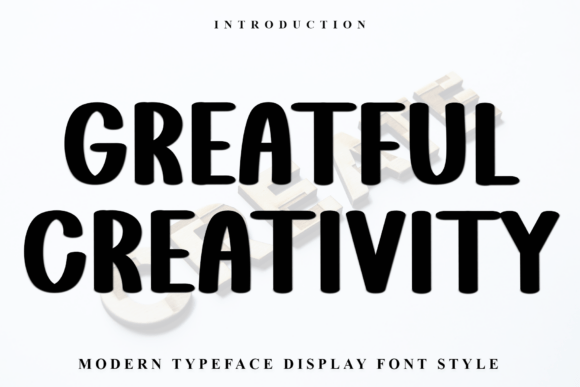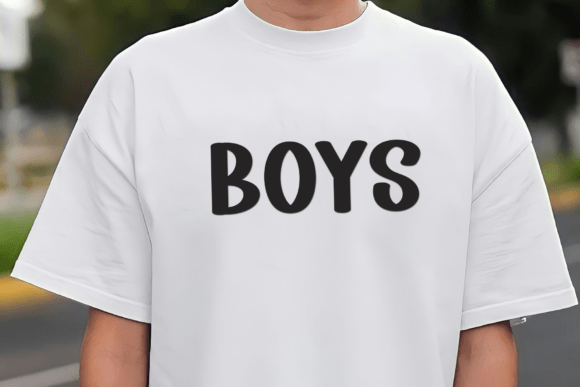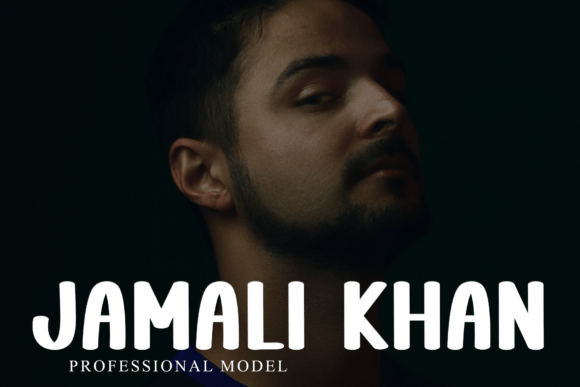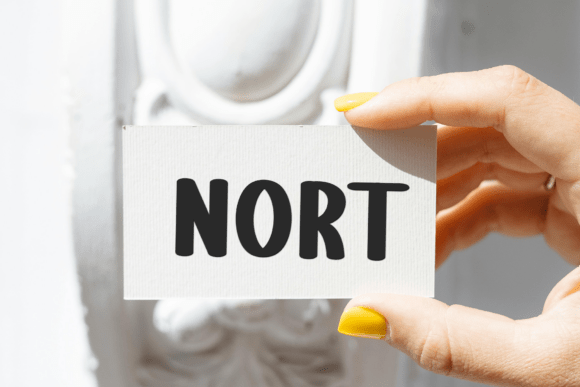
Greatful Creativity Font
About the Greatful Creativity Font
Step up your design game with Greatful Creativity Font, a font that exudes confidence and style. Greatful Creativity is a festive and merry typeface that captures the spirit of the holiday season. With its decorative elements and whimsical flair, it adds a touch of enchantment to your designs. Perfect for greeting cards, gift tags, and holiday-themed projects, this font brings a cheerful and nostalgic ambiance to your words. Let your typography shine with the magic of Beautiful Font!
Greatful Creativity’s playful personality makes it ideal for projects needing a lighthearted touch, such as children’s books, festive packaging, or whimsical branding for businesses like bakeries or toy stores. It shines in headlines, short quotes, and logos, but its decorative nature makes it less suitable for body text or UI elements requiring high readability.
For optimal visual balance, pair Greatful Creativity with a clean sans-serif like Open Sans for body copy, or a classic serif like Garamond for a more traditional feel. A simple geometric sans-serif could also offer a nice contrast, modernizing the overall aesthetic.
The font’s inherently cheerful nature is best suited to brands aiming for a friendly, approachable image. Avoid using it for projects requiring sophistication or seriousness; its whimsical design would clash with such contexts.
Greatful Creativity Font Usage Examples
Greatful Creativity Font Example